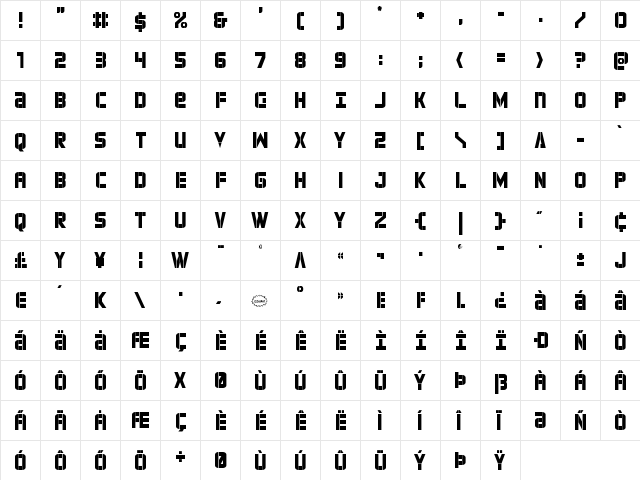
Force Commander Condensed Condensed
Design Context for Force Commander Condensed Typeface
Force Commander Condensed has the bold swagger of sports branding: strong, assertive letterforms designed to dominate headlines and jerseys alike. The condensed width makes it efficient for tight spaces without sacrificing legibility.
Built for sports team identities, athletic apparel, event posters, and high-energy promotional material.
Pro Tip: Force Commander Condensed thrives on contrast — try it large, bold, and tight against a clean background for maximum visual impact.